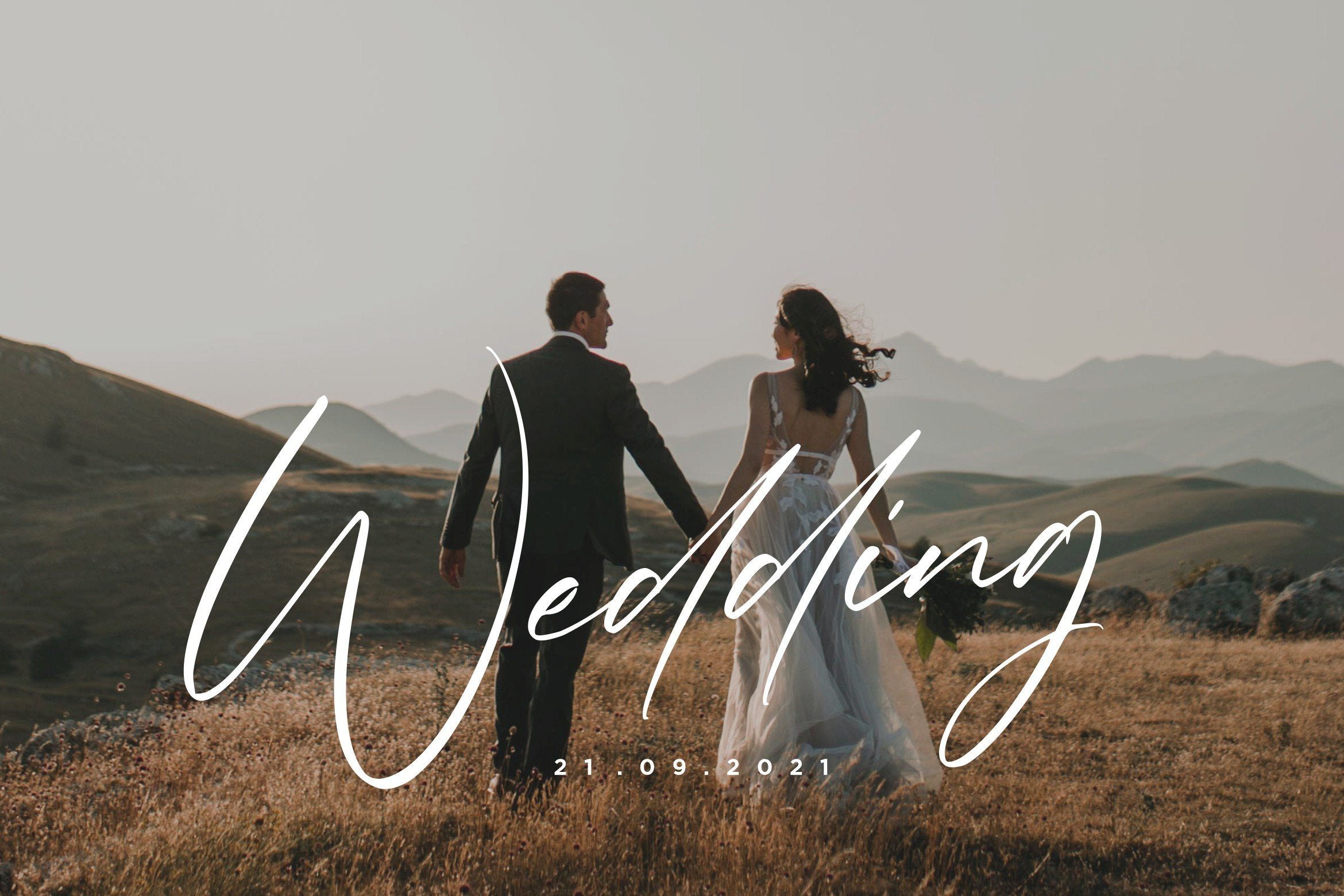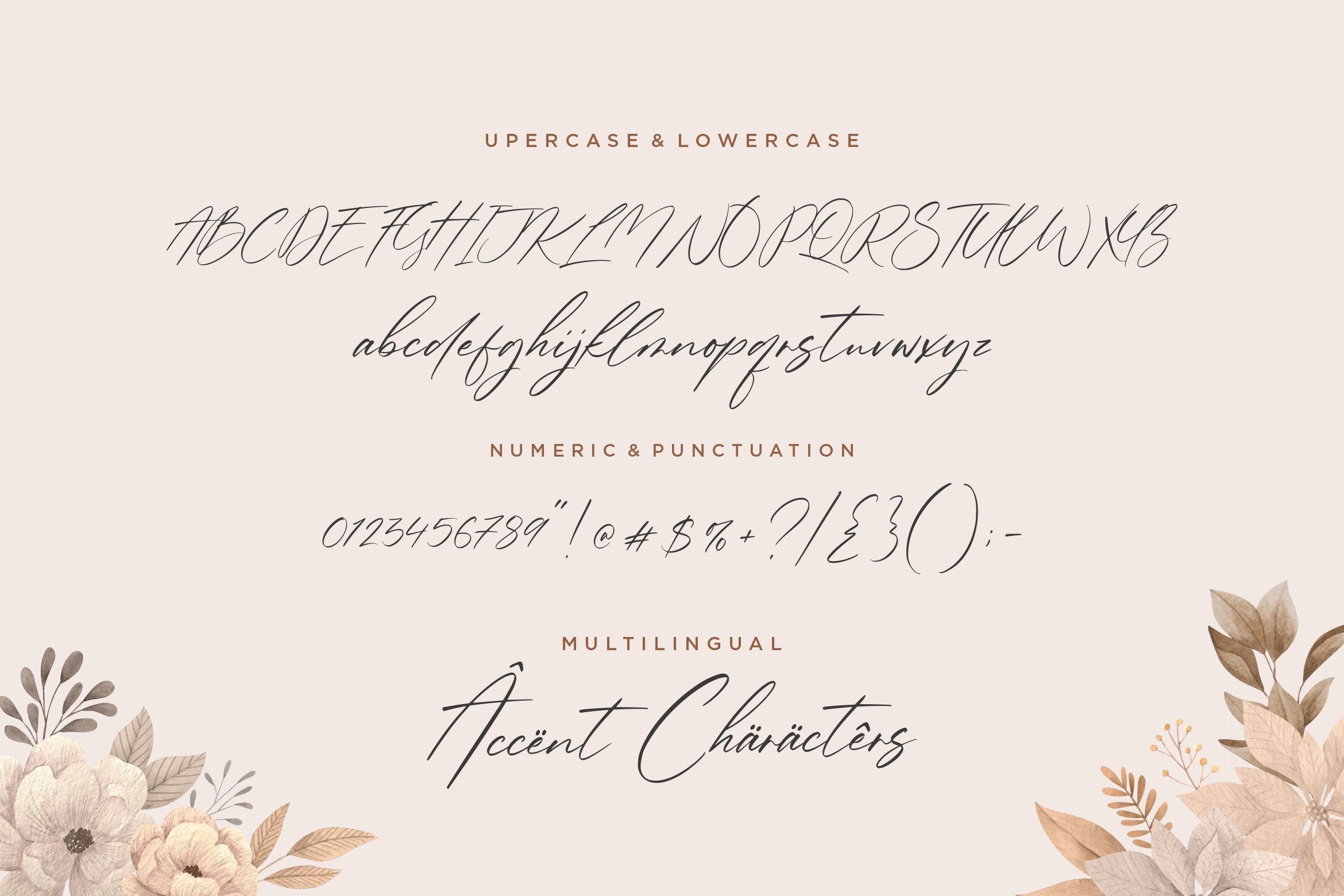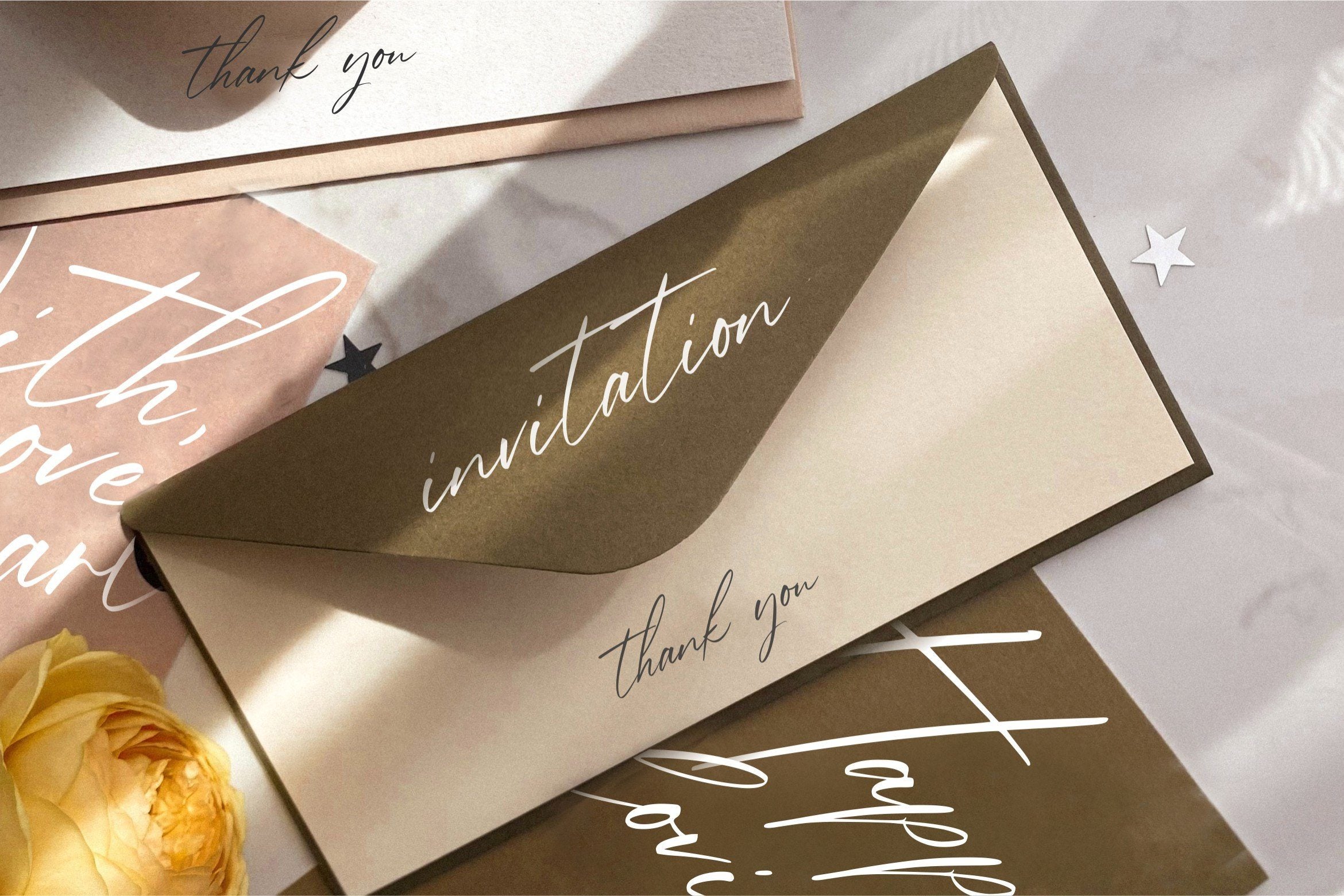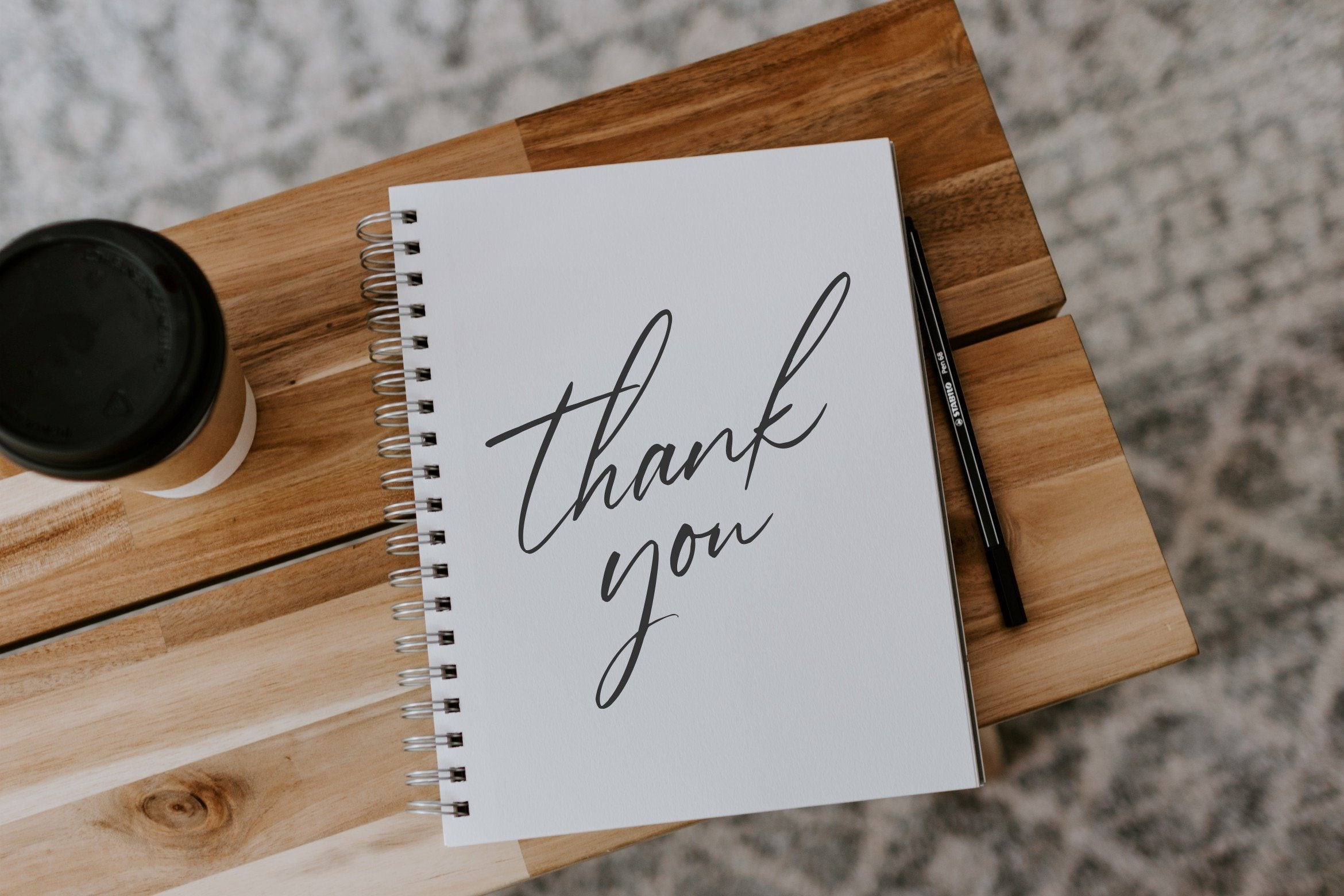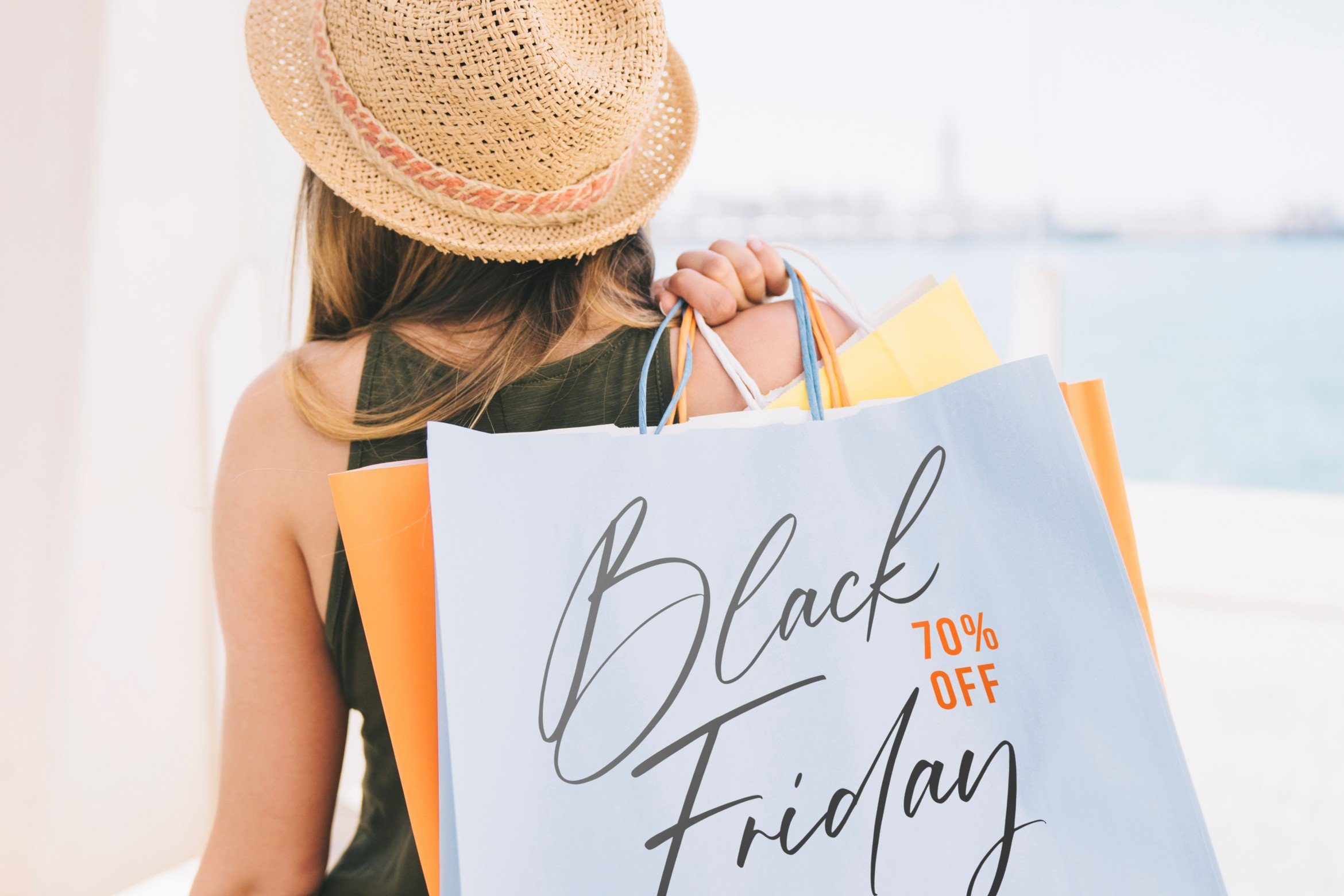
About Jacquelina Beautiful Handdrawn Font
Introducing by Balpirick Studio. Proudly Present, Jacquelina Font. Jacquelina is a Beautiful Handdrawn Font. Jacquelina is a thin lettered and graceful script font. Fall for its ravishing style and use it to create gorgeous wedding invitations, beautiful stationary art, eye-catching social media posts, and much more! This font includes TTF, OTF and WOFF, Jacquelina also multilingual support. Enjoy the font, feel free to comment or feedback, send me PM or email. Thank you!